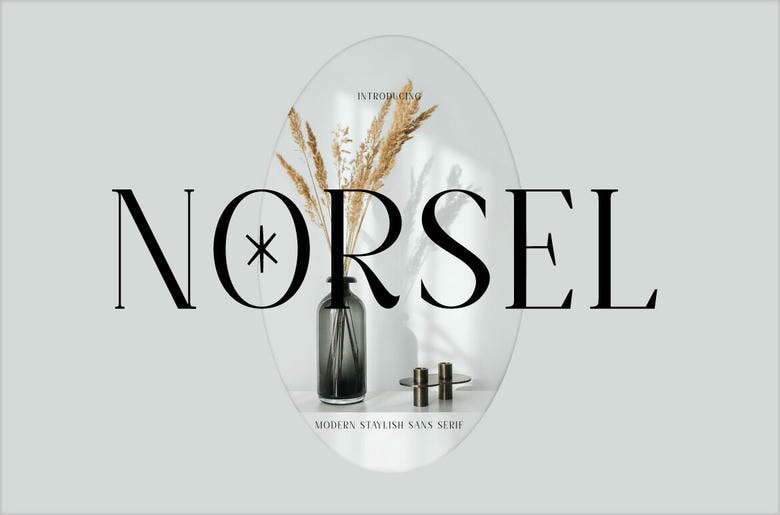
Norsel Font
Norsel is an attractive font which oozes both a retro and a bold feel to it. Thick curves and its design – 70s groovy, but the serifs eliminate the groove a bit and make it look more traditional. Norsel perfectly embodies those moods and those logos we wish to put onto a wall on the background of which we WANTED to spend the time as little as possible because it was necessary to prepare for a capitalist trap. It has exclusive lower and upper case; plus numeric, symbols & other world type of alphabets.
Norsel Serif Font